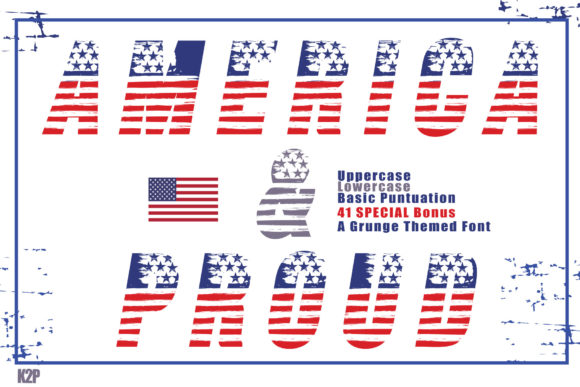
The Ultimate Guide to America and Proud Font: Unleashing Patriotic Design
I’ll never forget the time I was working on a project for a client’s 4th of July party invitation. I had the design concept nailed, but I was struggling to find the perfect font to match the patriotic theme. That’s when I stumbled upon the America and Proud font. It was love at first sight! 💫 This bold, incredibly cool, and assertive decorative font instantly elevated my design, and I knew I had found the perfect fit.
An Honest Review of America and Proud Font
- ✨ Bold and Assertive: America and Proud font makes a statement with its bold and assertive design, perfect for creating eye-catching patriotic designs.
- ✅ Highly Versatile: This font can be used for various design ideas related to patriotism, the USA, or anything alike, making it a great addition to any design library.
- 🎉 Endless Variations: With its wide range of OpenType features, glyphs, and stylistic alternates, you can create unique and personalized designs that stand out.
While America and Proud font is an amazing design tool, there are a few things to keep in mind:
- ⚠️ Legibility at Small Sizes: Due to its bold design, the font may not be legible at very small sizes. It’s best to use it at larger sizes to ensure maximum impact.
- 🤔 Pairing with Other Fonts: As a bold font, America and Proud can overpower other fonts in a design. Be mindful of font pairing to ensure a balanced look.
The Designer Inspiration Behind America and Proud Font
The America and Proud font was designed with the intention of creating a bold and assertive font that captures the spirit of patriotism and American pride. The designer aimed to create a font that’s highly versatile and can be used for various design projects, from party invitations to social media graphics.
Q: What is the America and Proud font?
A: America and Proud font is a bold, incredibly cool, and assertive decorative font perfect for creating patriotic designs.
Q: Is America and Proud font suitable for body text?
A: No, America and Proud font is best used for headlines and titles due to its bold design. It’s not recommended for body text.